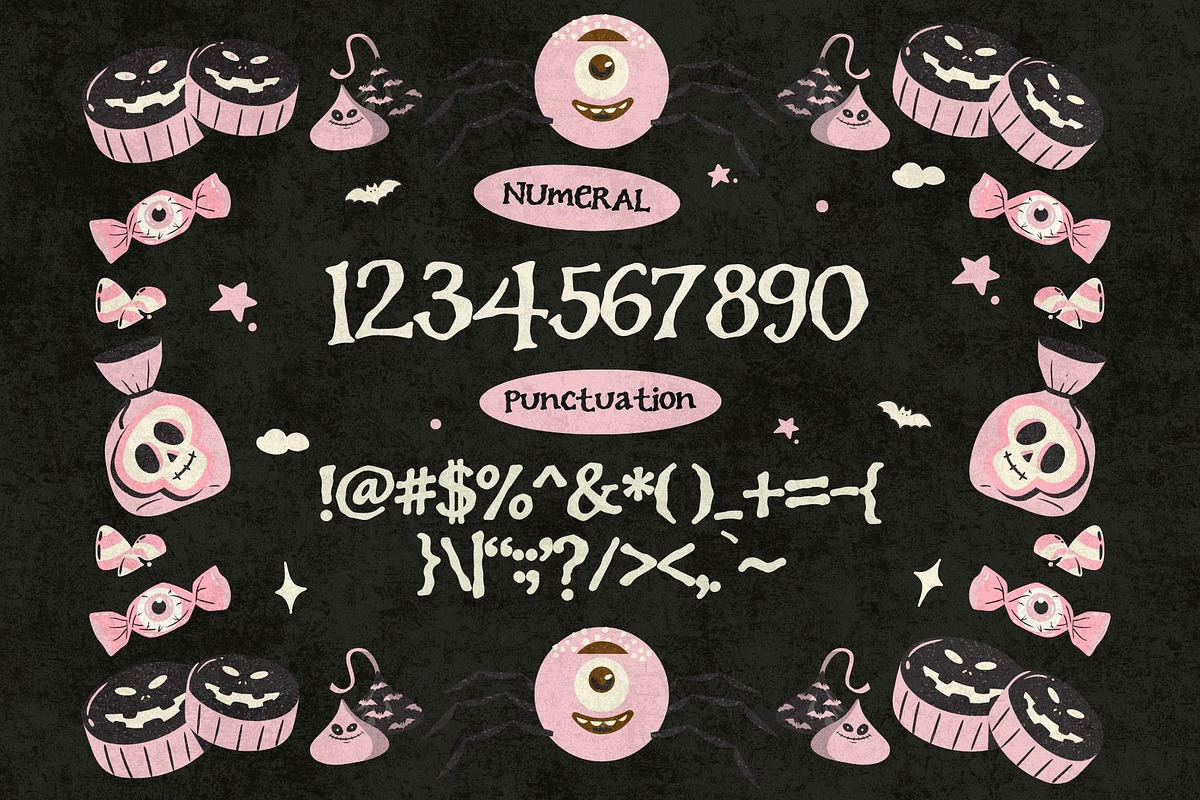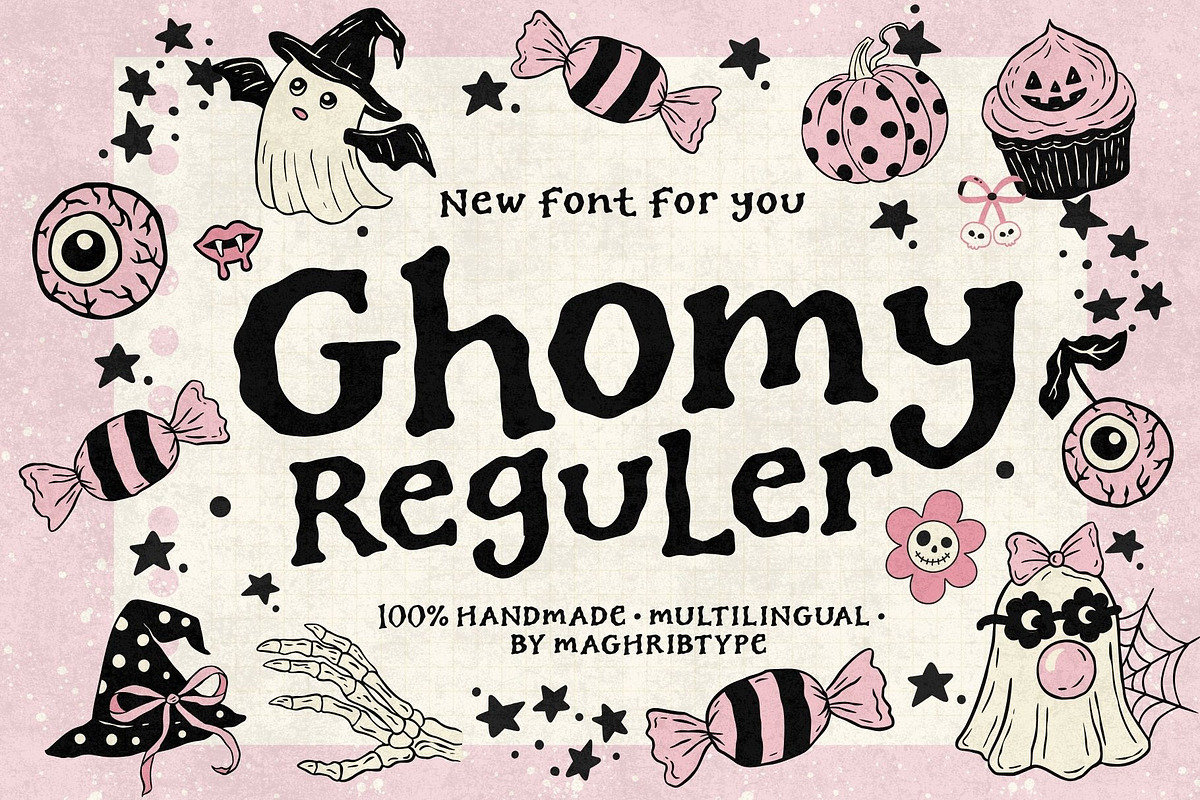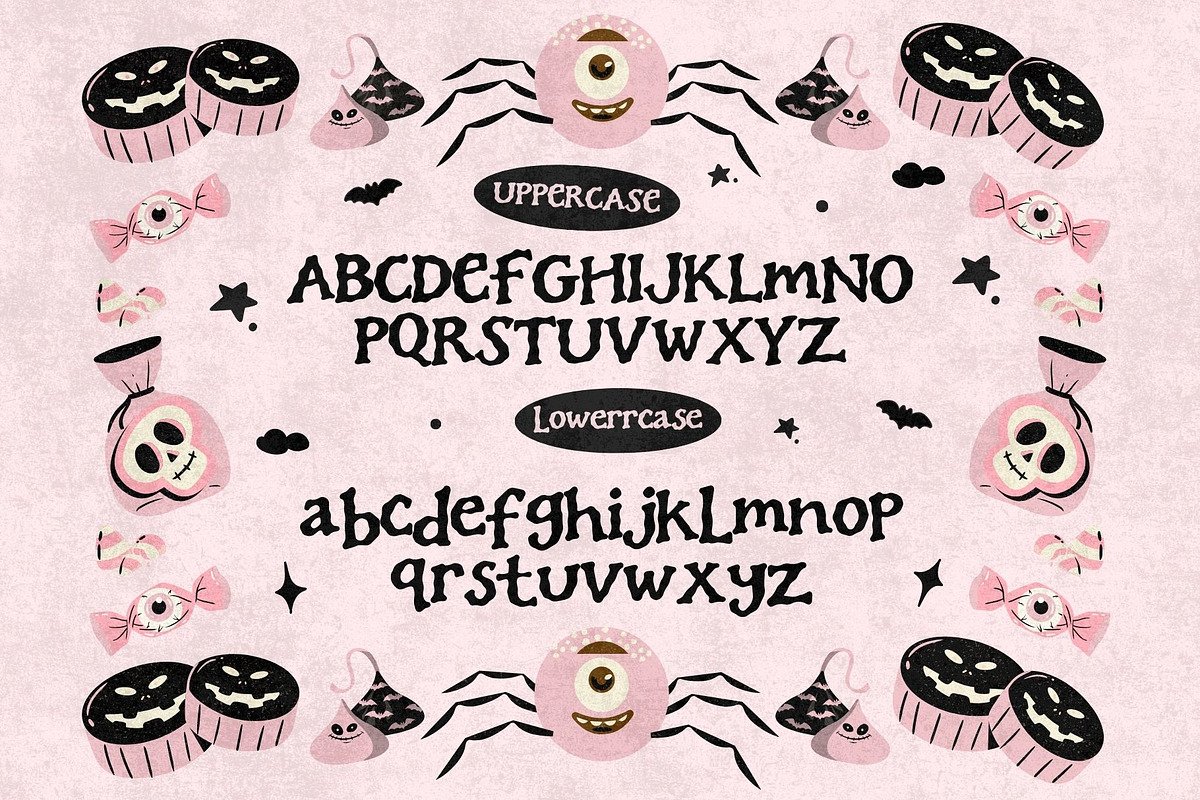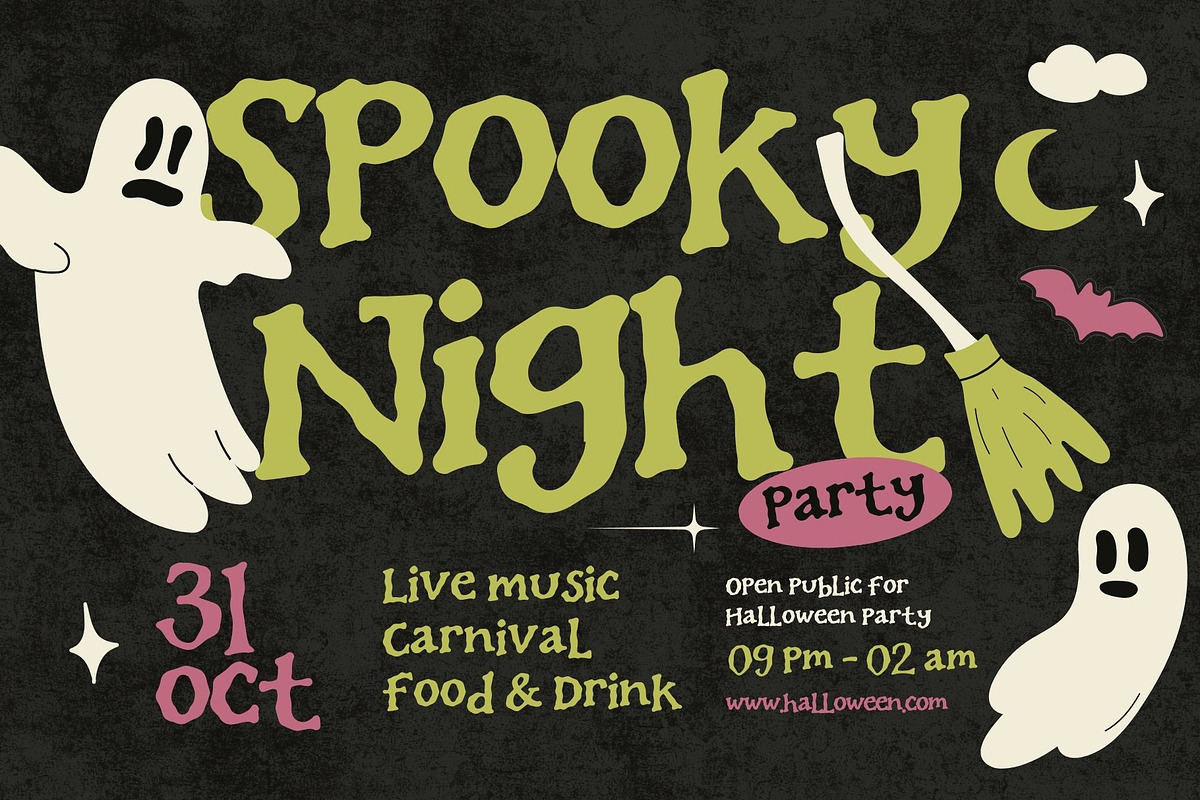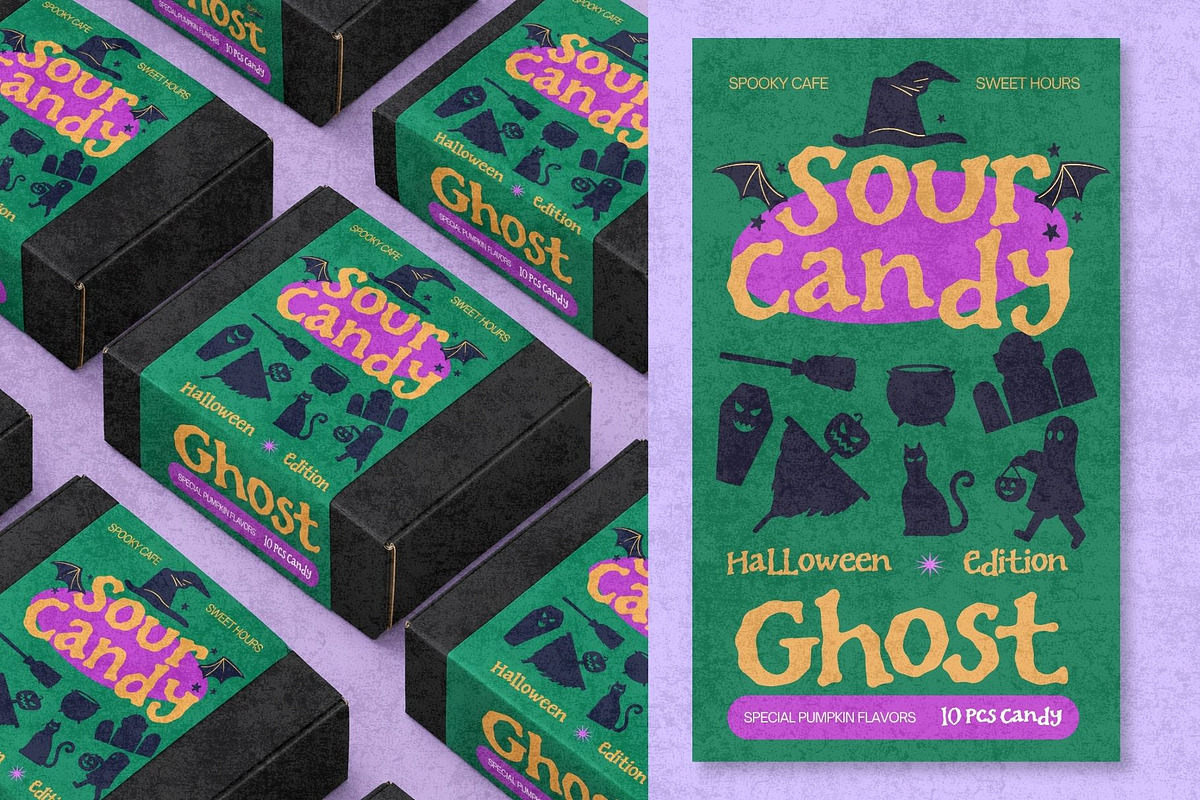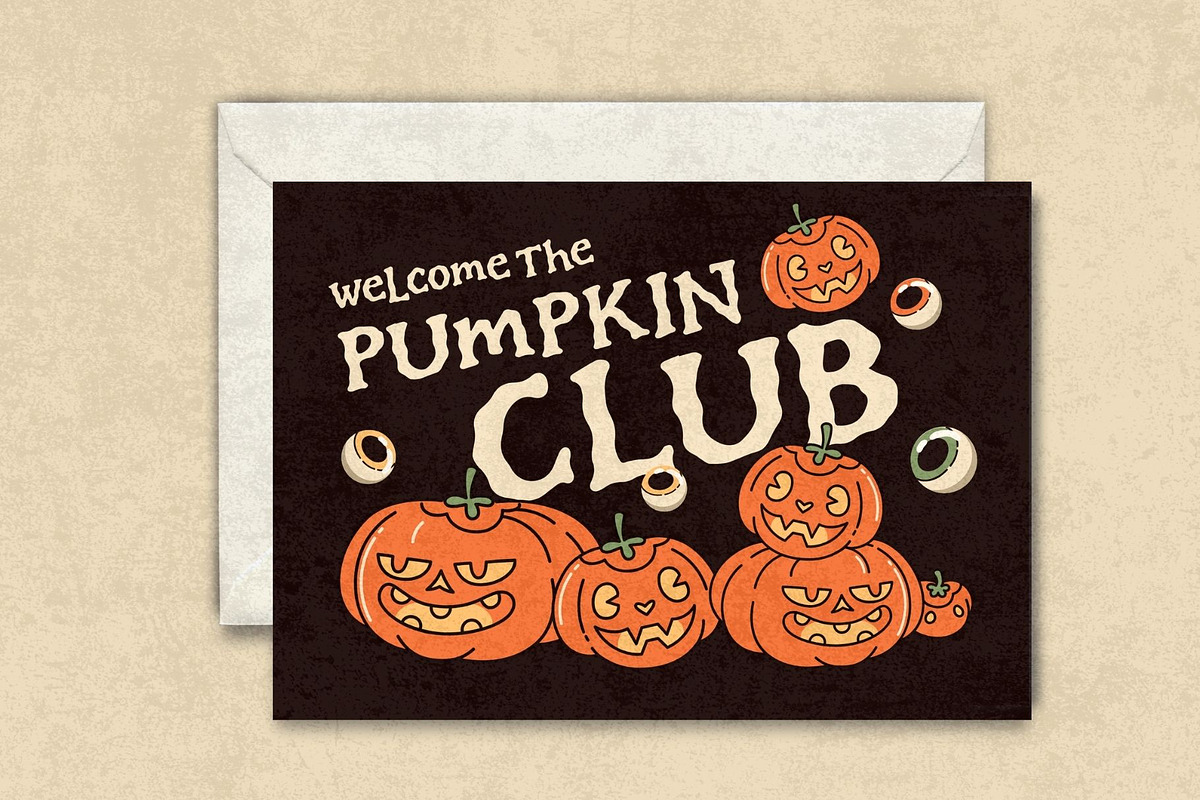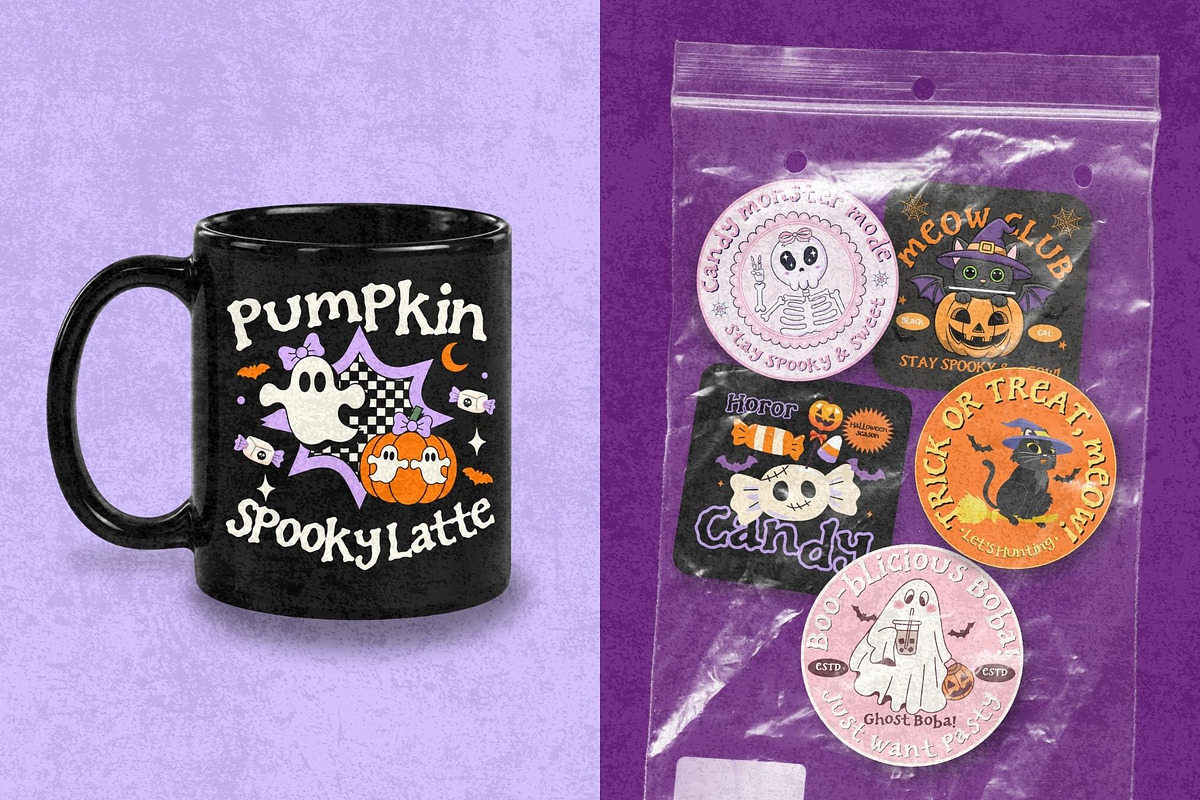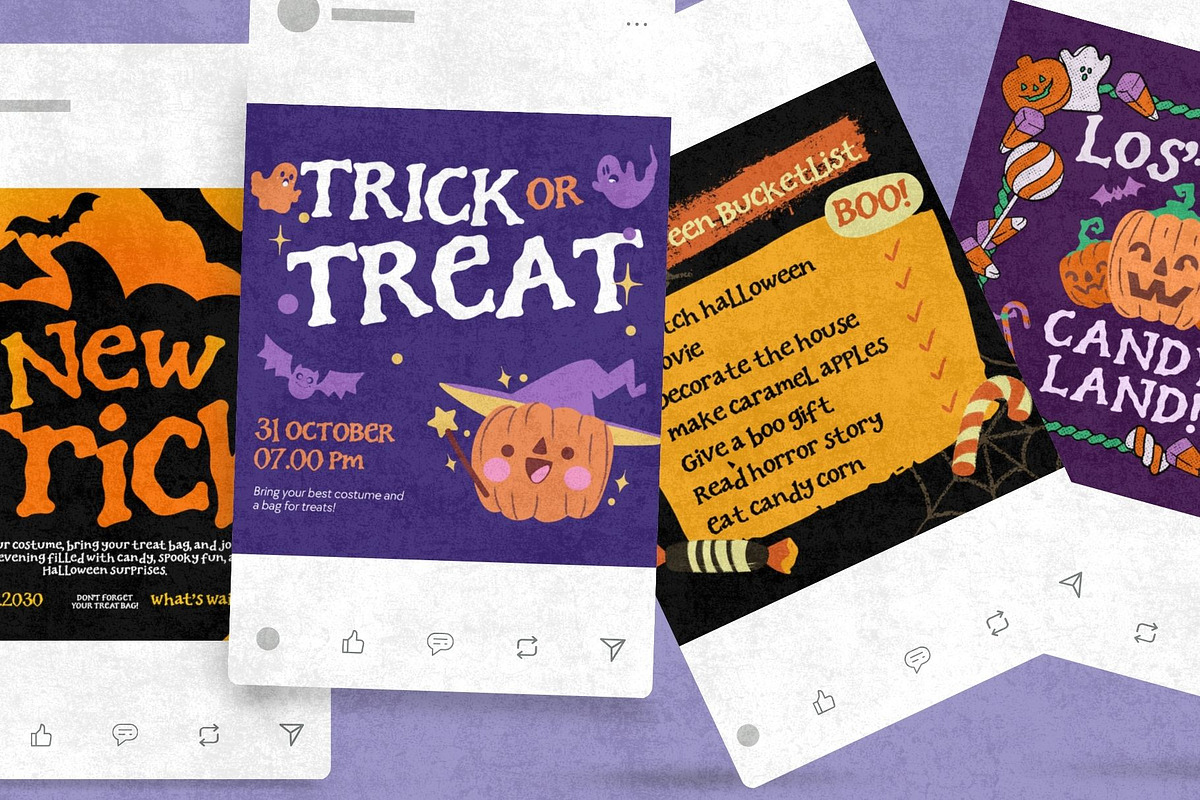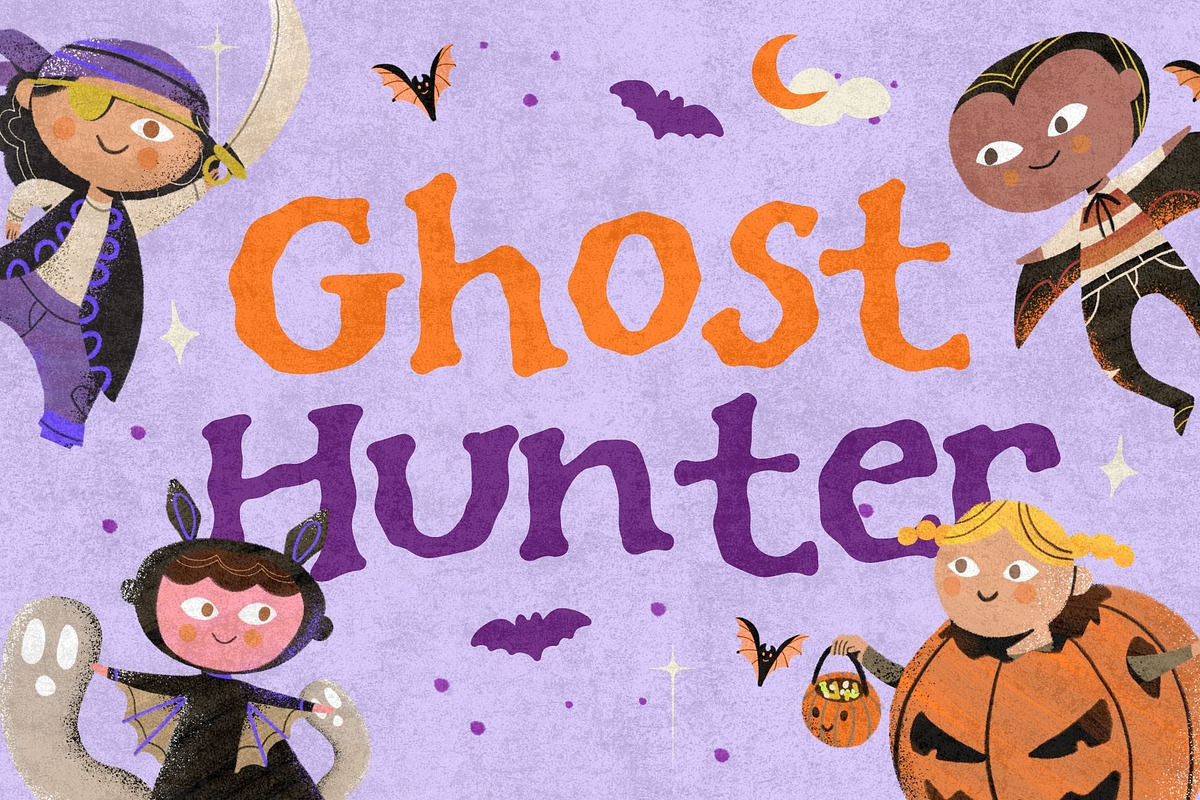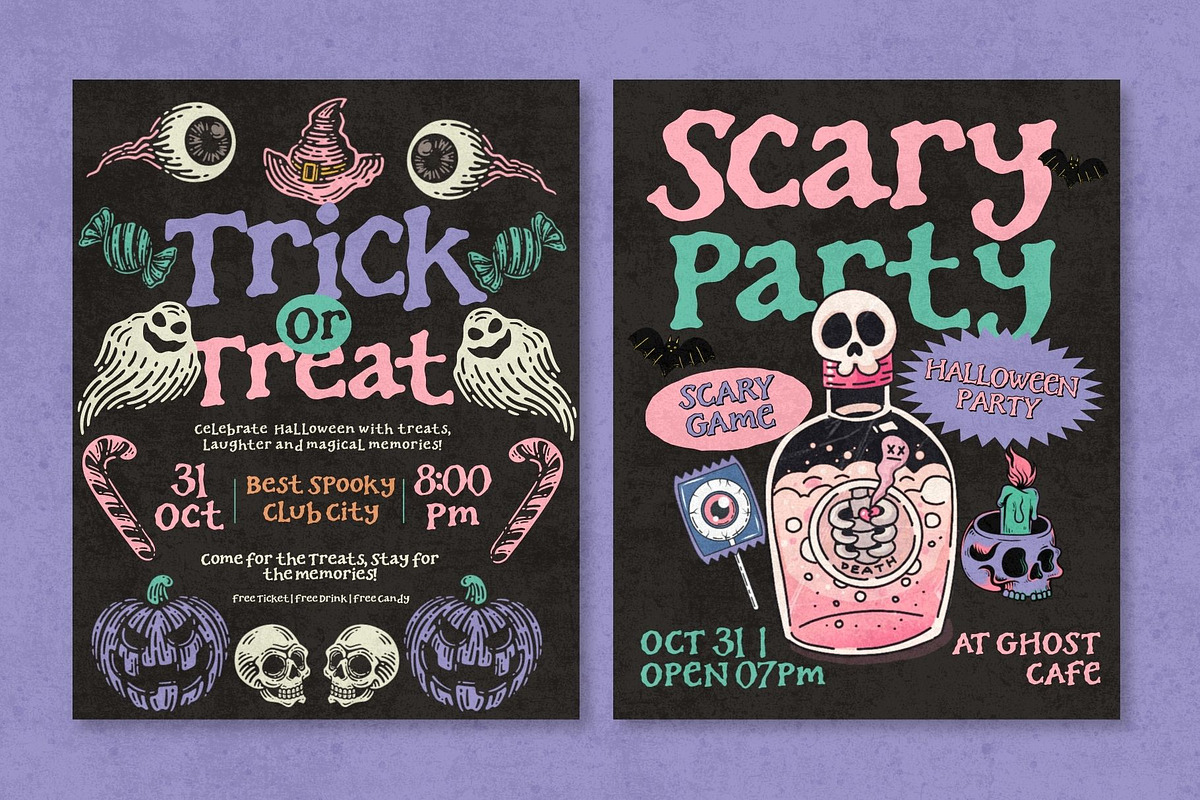
Ghomy Halloween
Ghomy Font – Halloween Season
Get ready for a spooky little typography party! 🎃👻 Ghomy is a playful handmade display font with chunky, wobbly letterforms and a quirky vintage character. Its irregular shapes give every word a fun, imperfect personality that feels handmade, cheerful, and slightly spooky.
Designed especially for Halloween-themed projects, Ghomy works beautifully for Halloween posters, party invitations, greeting cards, social media graphics, stickers, packaging, T-shirts, merchandise, kids' designs, candy labels, spooky branding, and seasonal artwork.
The font combines a bold organic shape, soft curves, playful proportions, and a nostalgic handmade feel, making it easy to create eye-catching Halloween typography without looking too serious or frightening.
Halloween Party Designs
Spooky Posters & Flyers
Halloween Invitations
Greeting Cards
Candy & Snack Packaging
Stickers & Labels
T-Shirt & Merchandise Design
Children's Halloween Projects
Seasonal Branding
Posters & Headlines
Digital Scrapbooking
Ghomy is made to bring a little more fun, weirdness, and Halloween magic into your typography. 🦇🍬🎃